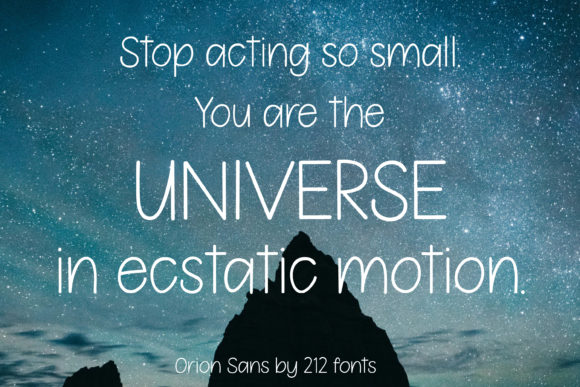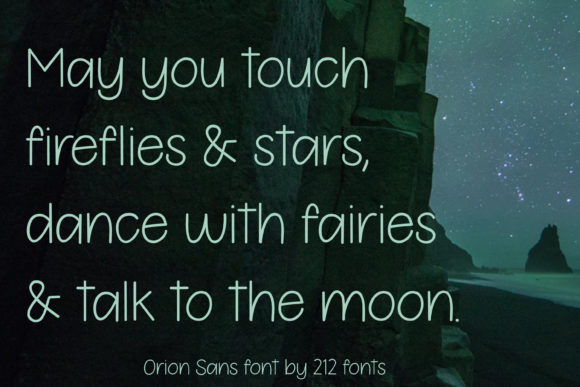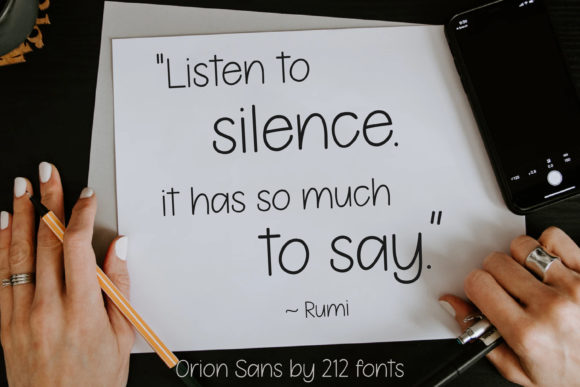
Orion Sans Font
Orion Sans is a classy handwritten font. With its neat and beautiful arrangement of letters, this typeface will look outstanding in both formal and non-formal designs.